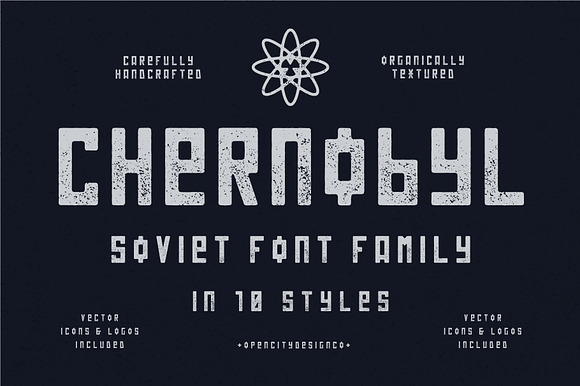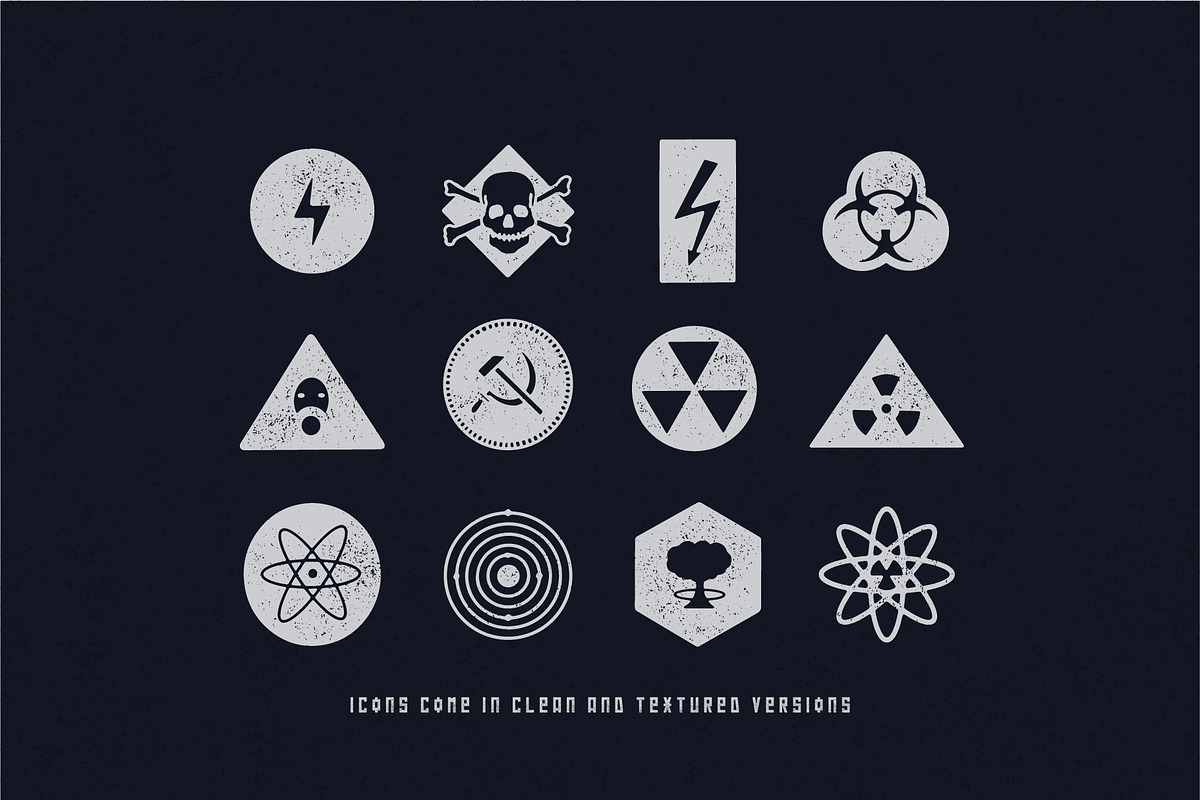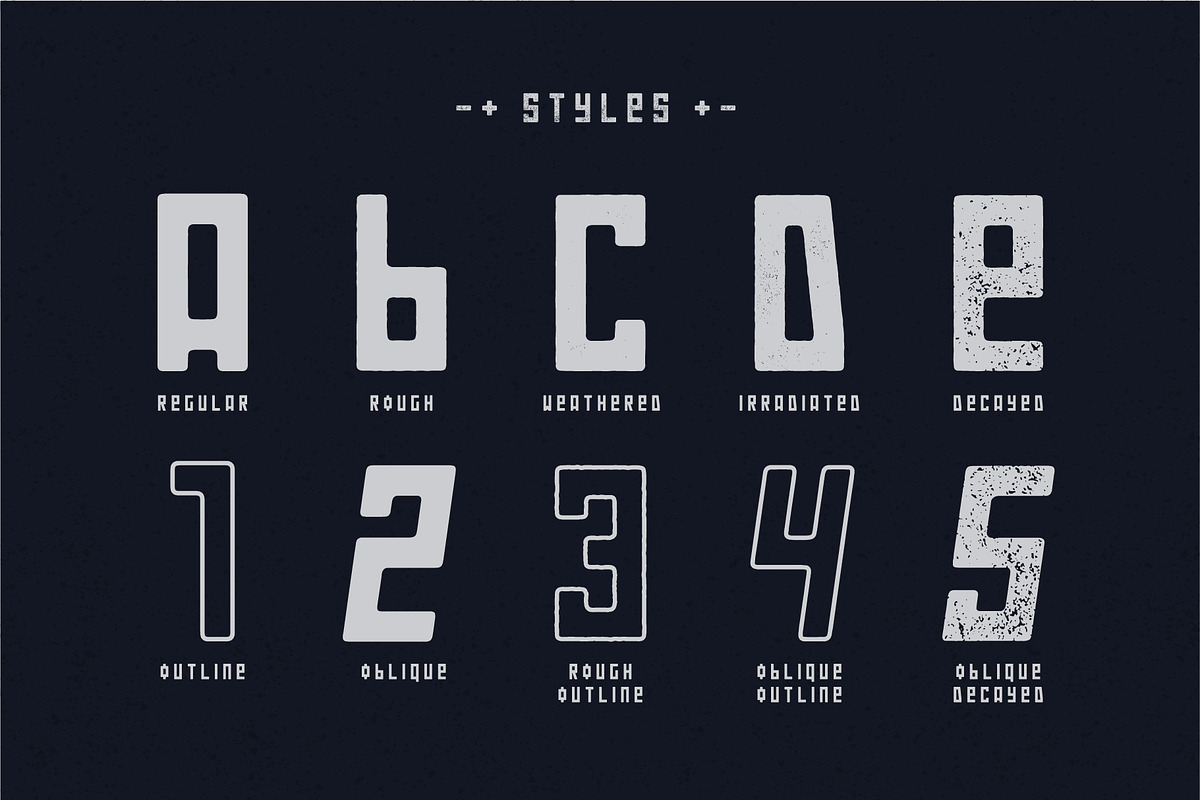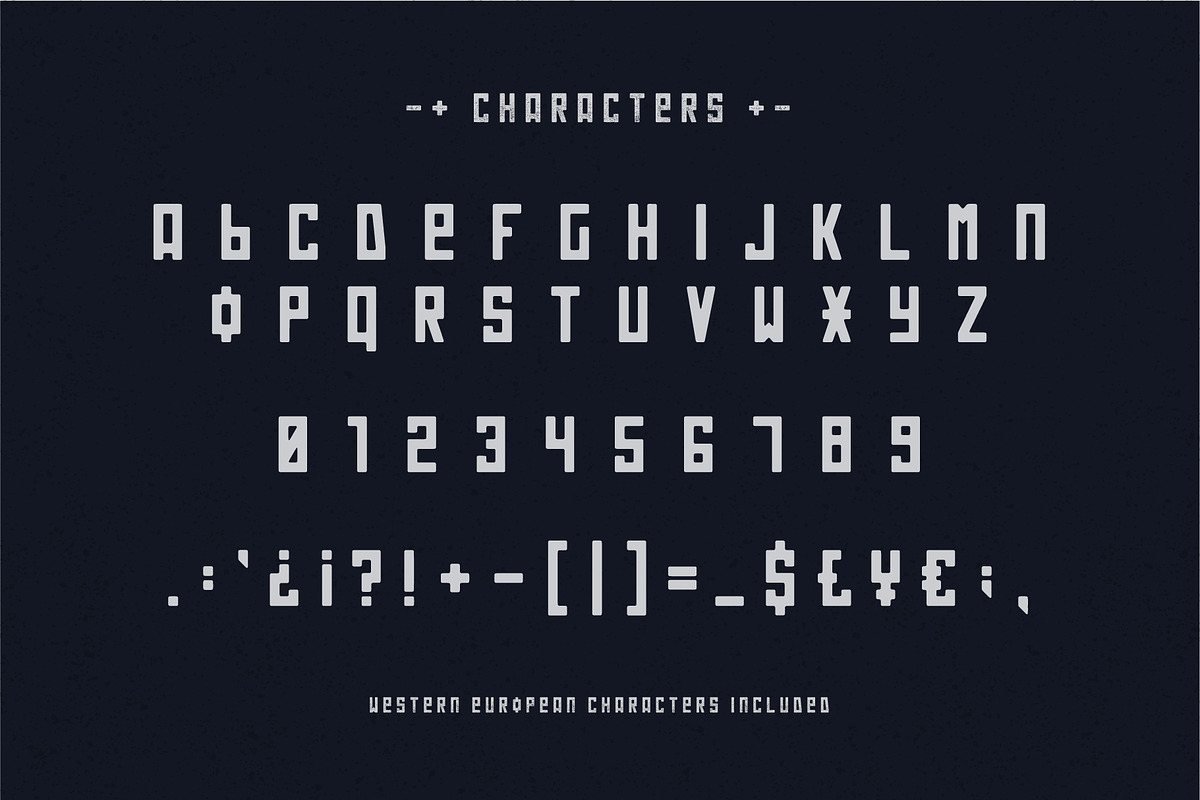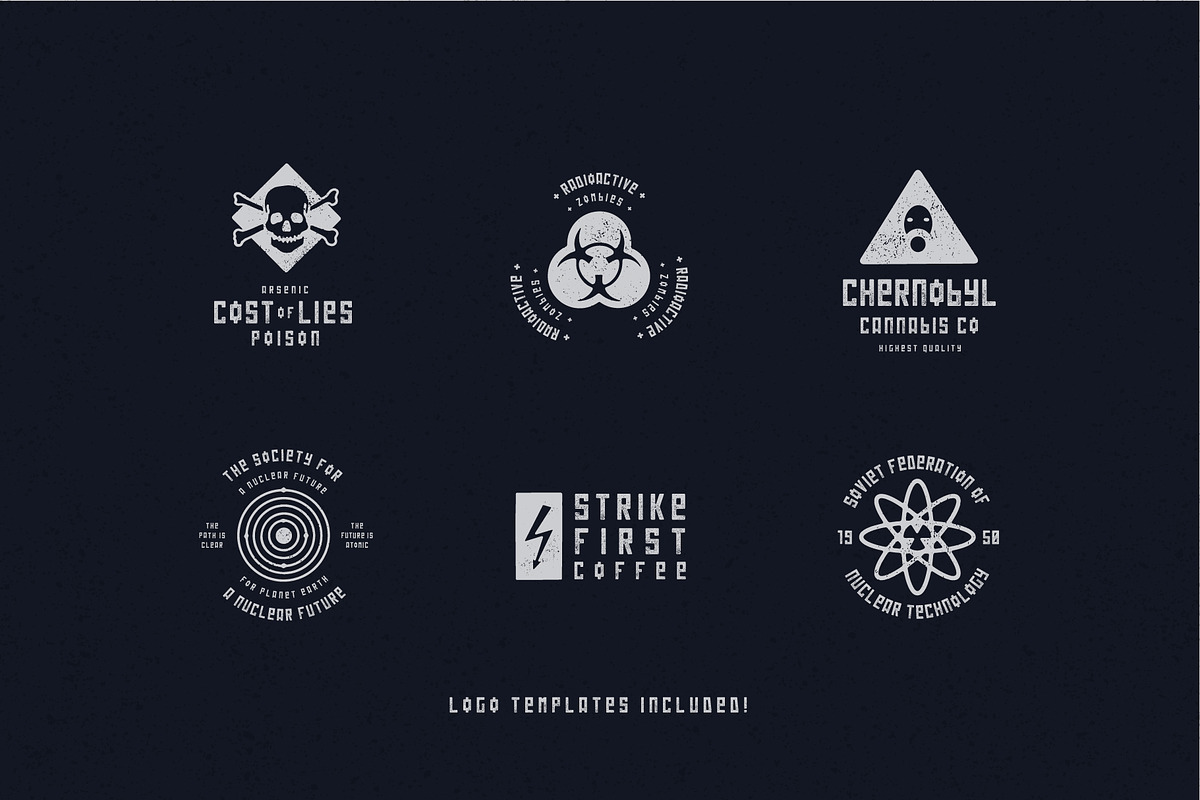
Chernobyl - Soviet Font Family
Chernobyl is a Soviet (brutalist) style typeface that comes in 10 unique, carefully made styles. In addition to the fonts, you get a variety of handcrafted, vector-based Soviet and nuclear themed icons, which come in clean and textured versions. On top of that, Chernobyl comes with 6 unique logo templates which you can sub icons/styles in and out of. Options abound!